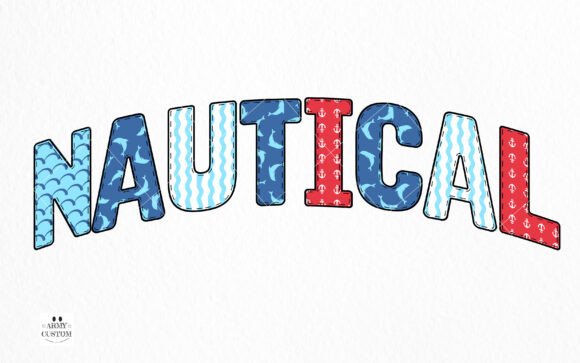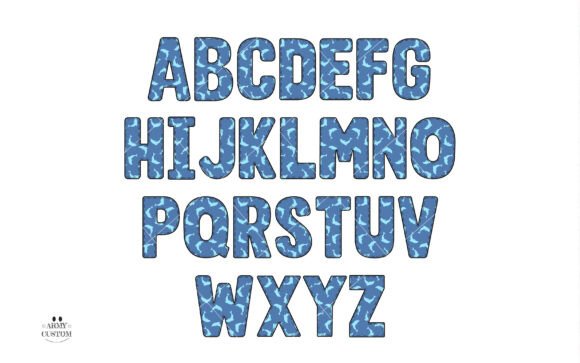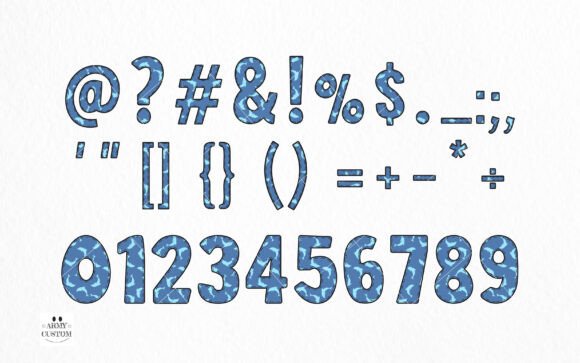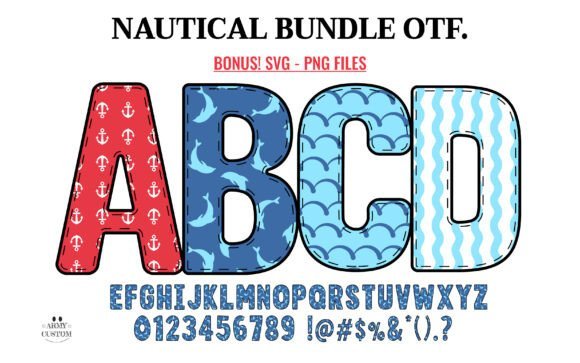
Introduction to Nautical, Navy Bundle Font
Dive into the captivating charm of the β€œnautical navy” bundle, a distinctive font crafted to articulate your deepest sentiments with a magical flair.
This maritime-inspired typeface, designed strikingly, acts as a vehicle for expressing the inexpressible, adding an enchanting touch to your projects Capture the mysticism of the sea and the boldness of the navy with this alluring font.